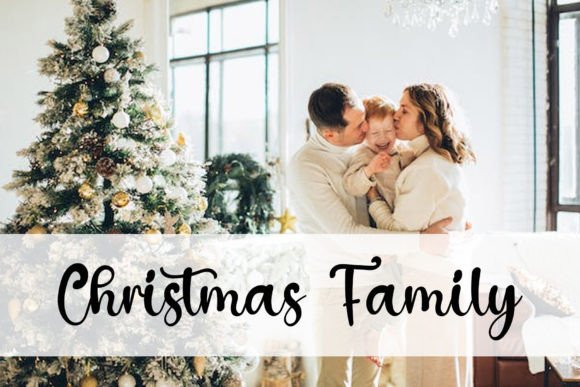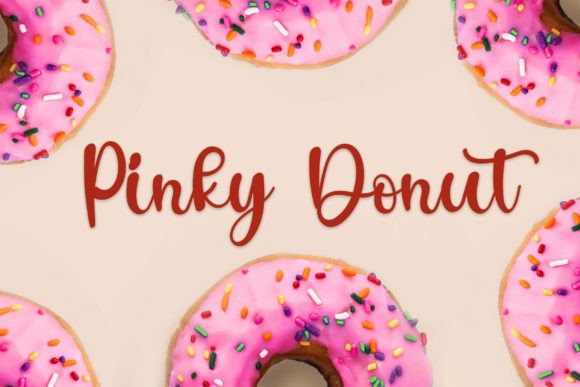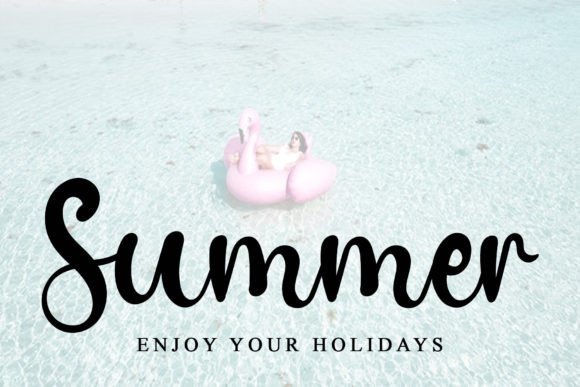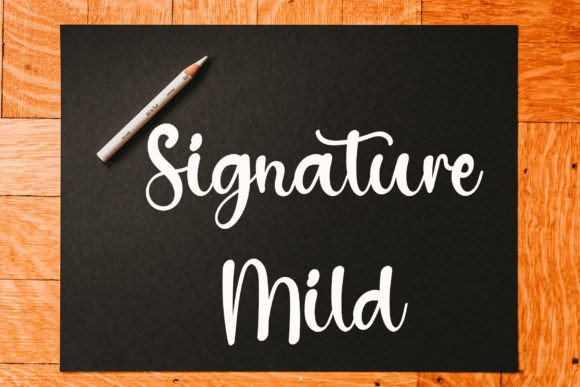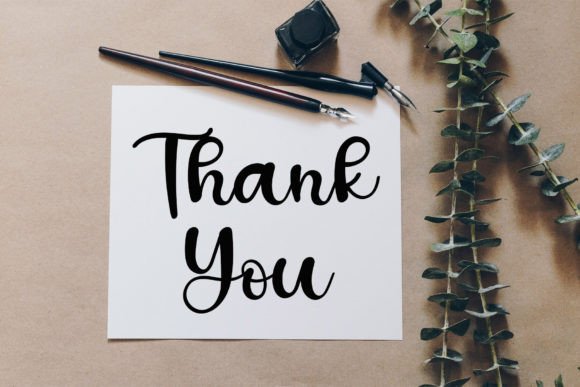
Discover the Timeless Beauty of Baby Face Font
Have you ever been stuck on a design project, struggling to find the perfect font to bring your vision to life? That was me, until I stumbled upon the enchanting Baby Face Font. Its elegant touch and distinct style instantly captured my heart, and I knew I had to share it with fellow creatives.
Baby Face Font is a beautiful handwritten font that’s perfect for adding a touch of sophistication to your favorite projects. Whether you’re designing a wedding invitation, a birthday card, or a brand identity, this font is sure to impress. Its timeless style makes it a valuable addition to any designer’s toolkit, allowing you to create spectacular designs that leave a lasting impression.
Baby Face Font Key Features
- Size and Resolution: The font is designed to be highly legible at various sizes and resolutions, making it suitable for digital and print use.
- Unique Characteristics: Baby Face Font features a playful, cursive design with rounded edges and soft lines, creating a friendly and approachable feel.
- Language Support: The font supports a wide range of languages, including Latin, Cyrillic, and Greek scripts.
- Kerning and Ligatures: Baby Face Font includes advanced kerning and ligature pairs to ensure smooth text rendering and a professional appearance.
- Font Weight and Style: The font family includes multiple weights and styles, including Light, Regular, Bold, and Italic, to cater to various design needs.
Baby Face Font Review
Overall, I think Baby Face Font is a cute and playful font that can be a great addition to a design project, especially if you’re going for a whimsical or child-friendly vibe. ✨ The rounded edges and soft lines give it a friendly feel that can work well for titles, headings, and even body text.
- ✨ Friendly and approachable design that can appeal to a younger audience
- ✨ Versatile font that can be used for titles, headings, and body text
- ✨ Can be used for a variety of projects, from children’s books to greeting cards
- ⚠️ May not be suitable for formal or professional projects due to its playful design
- ⚠️ Can be difficult to read in smaller sizes or when used for large blocks of text
- ⚠️ Limited character set and language support may be a limitation for some projects
Overall, Baby Face Font is a great choice for projects that require a lighthearted and playful touch. However, it’s essential to consider the limitations and potential drawbacks before using it in your design.
Tips for Getting the Most Out of Baby Face Font
Use Baby Face Font for creating playful and whimsical designs, such as:
- Baby-themed graphics and invitations
- Children’s book illustrations and typography
- Playful logos and branding materials
Alternatives to Baby Face Font for Designers
Great Vibes is a beautiful, elegant script font that is perfect for creating a whimsical and romantic atmosphere. It’s ideal for use in wedding invitations, greeting cards, and other special occasion designs. Great Vibes has a more refined and sophisticated feel compared to Baby Face Font, making it suitable for more formal and upscale designs.
Litera Font
Litera is a modern, clean script font that is great for creating a sophisticated and elegant look. It’s perfect for use in business cards, brochures, and other marketing materials where a professional and polished appearance is desired. Litera has a more contemporary feel compared to Baby Face Font, making it suitable for modern and trendy designs.
Carolyna Pro is a stylish, elegant script font that is perfect for creating a luxurious and sophisticated atmosphere. It’s ideal for use in high-end designs, such as luxury branding, packaging, and advertising. Carolyna Pro has a more refined and elegant feel compared to Baby Face Font, making it suitable for premium and high-end designs.
Playfair Display is a luxurious, elegant serif font that is perfect for creating a sophisticated and high-end atmosphere. It’s ideal for use in branding, packaging, and advertising where a premium and luxurious feel is desired. Playfair Display has a more formal and elegant feel compared to Baby Face Font, making it suitable for upscale and high-end designs.